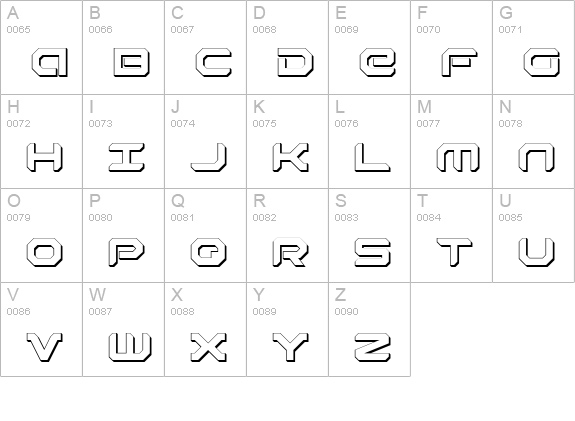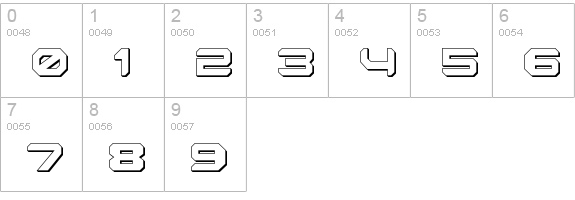
Robotaur 3D Font Details
Introducing Robotaur 3D font, a futuristic and dynamic typeface that brings a touch of innovation to any design project. This cutting-edge font features sleek lines and sharp angles, giving it a modern and high-tech look. The 3D effect adds depth and dimension, making your text stand out with a bold and impactful presence. Robotaur 3D font is perfect for a variety of applications, including tech-related designs, gaming graphics, and sci-fi projects. Its versatility allows for both display and headline use, ensuring that your message is delivered with style and sophistication. Best of all, Robotaur 3D font is available for free download at FontsMarket.com. This means you can access this exceptional font without any cost, making it a valuable addition to your font collection. Don't miss out on the opportunity to elevate your designs with this unique and eye-catching typeface. Download Robotaur 3D font today and take your projects to the next level!